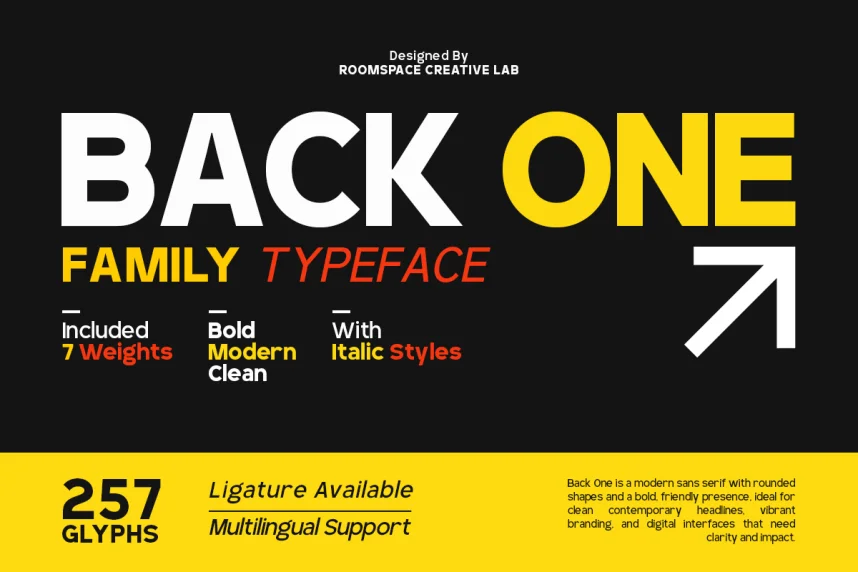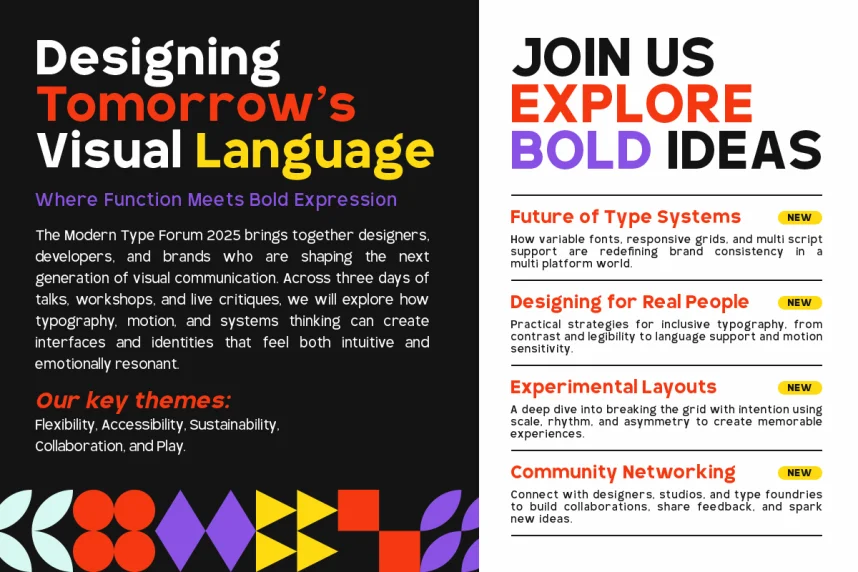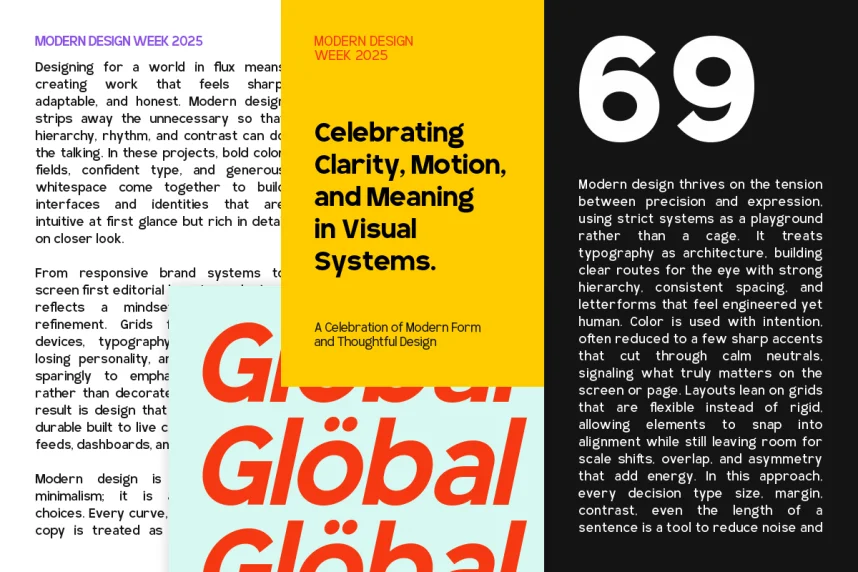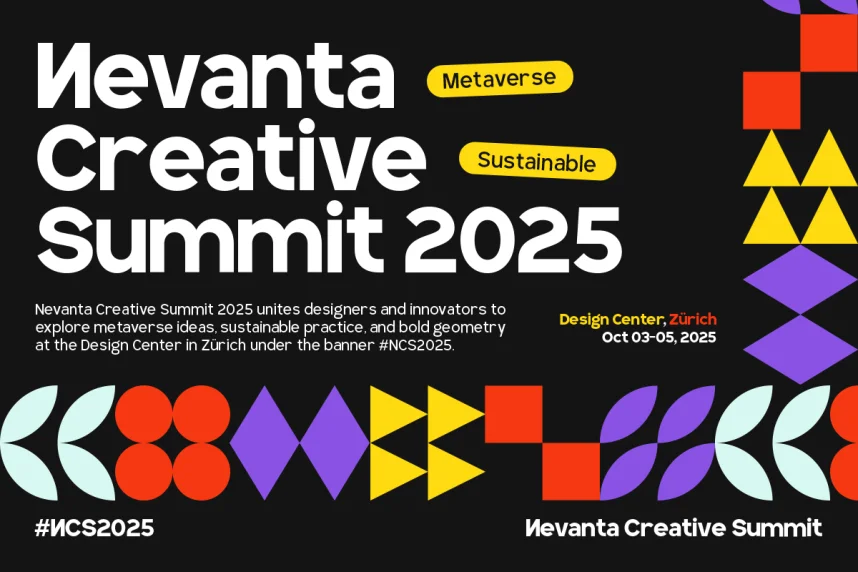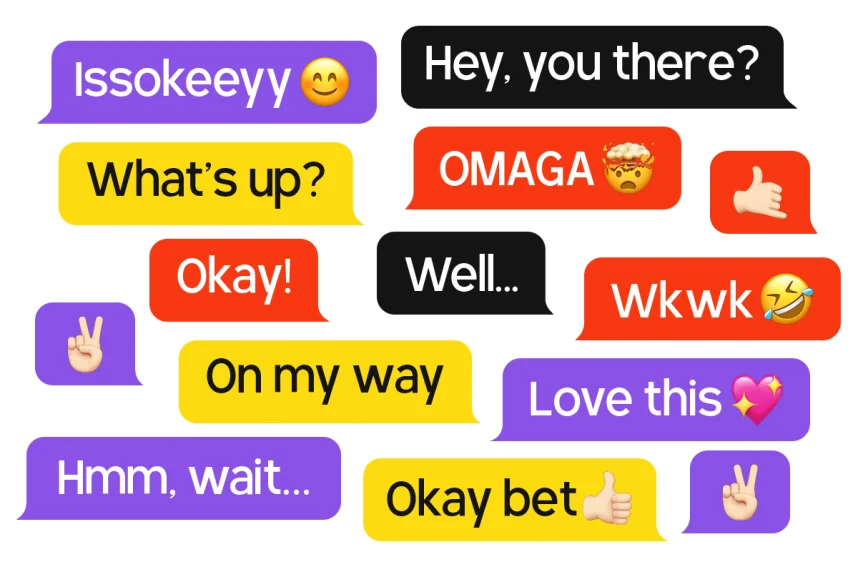
RCL BackOne Font is a modern display typeface designed for bold layouts that require strong visual focus and consistent alignment. Designers often face issues with display fonts that look striking but break readability across different screen sizes. RCL BackOne addresses this by keeping letter shapes structured and spacing controlled.
This font belongs to the display sans-serif category. Its letterforms feature solid stroke weight, clean edges, and balanced proportions. The characters are wide enough to stand out in headlines while remaining readable in digital environments. The baseline alignment is consistent, which helps maintain layout stability in branding systems.
RCL BackOne is commonly used for branding, logo design, website headers, posters, advertising banners, and social media visuals. It works best in short text blocks such as titles, calls to action, and brand marks. Designers usually pair it with a neutral sans-serif or light serif font for body text to create contrast and hierarchy.